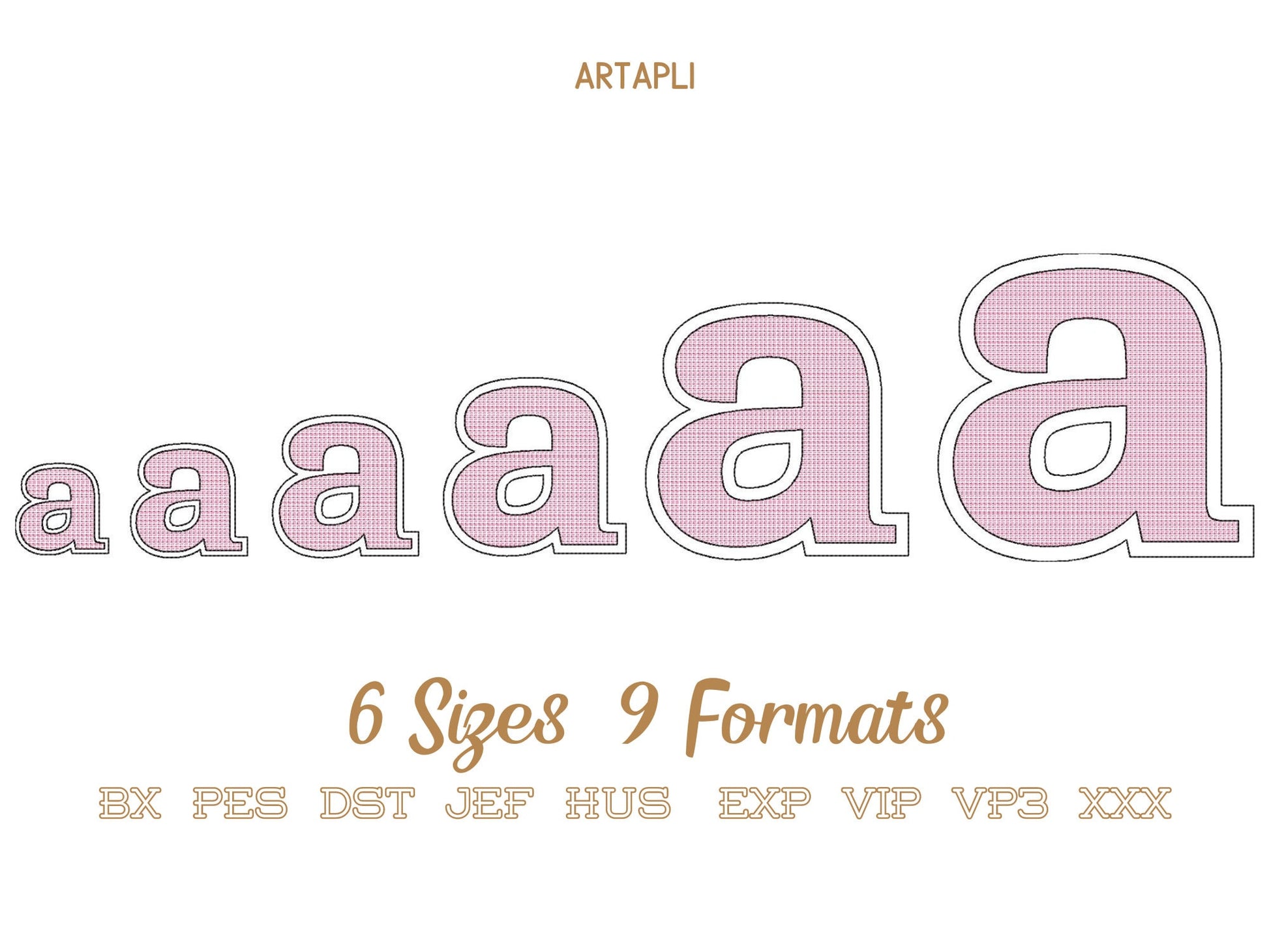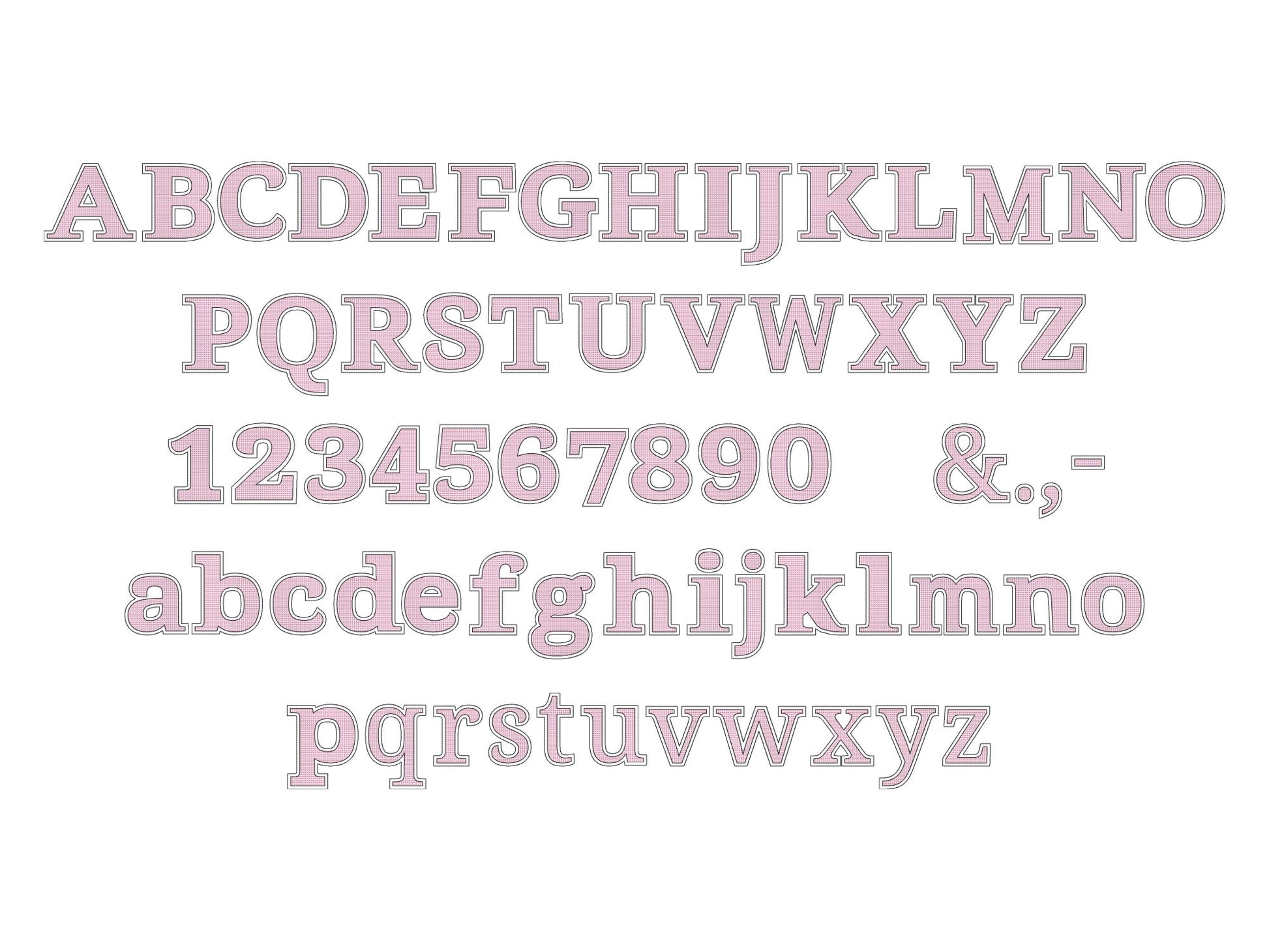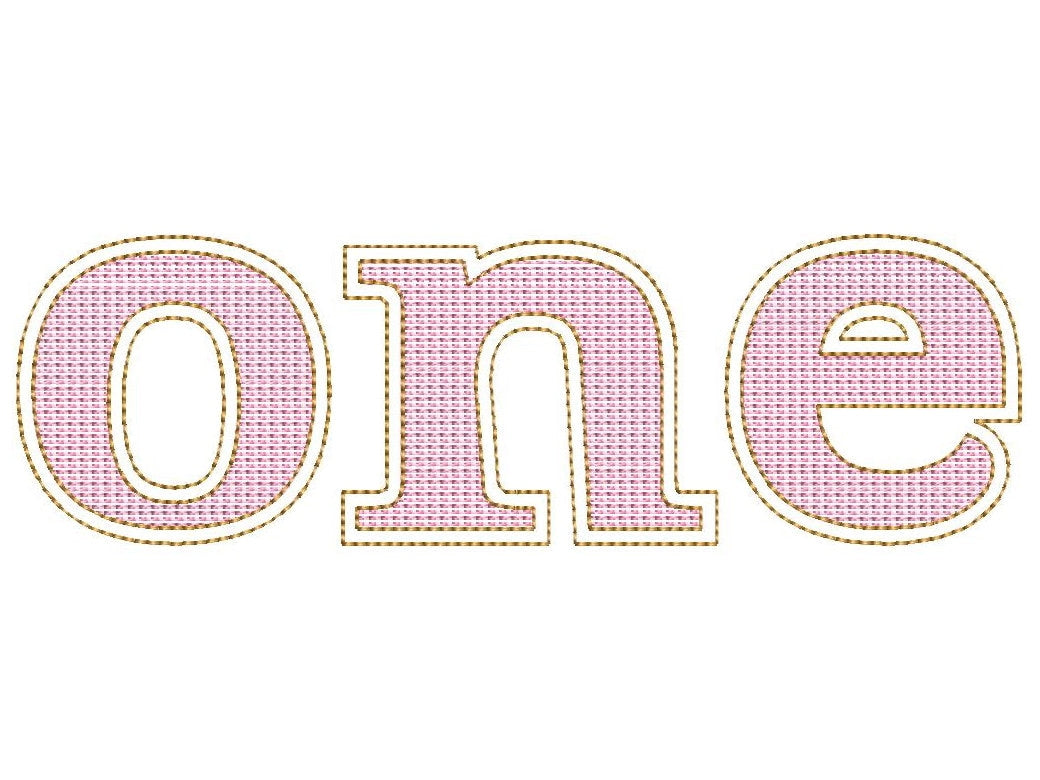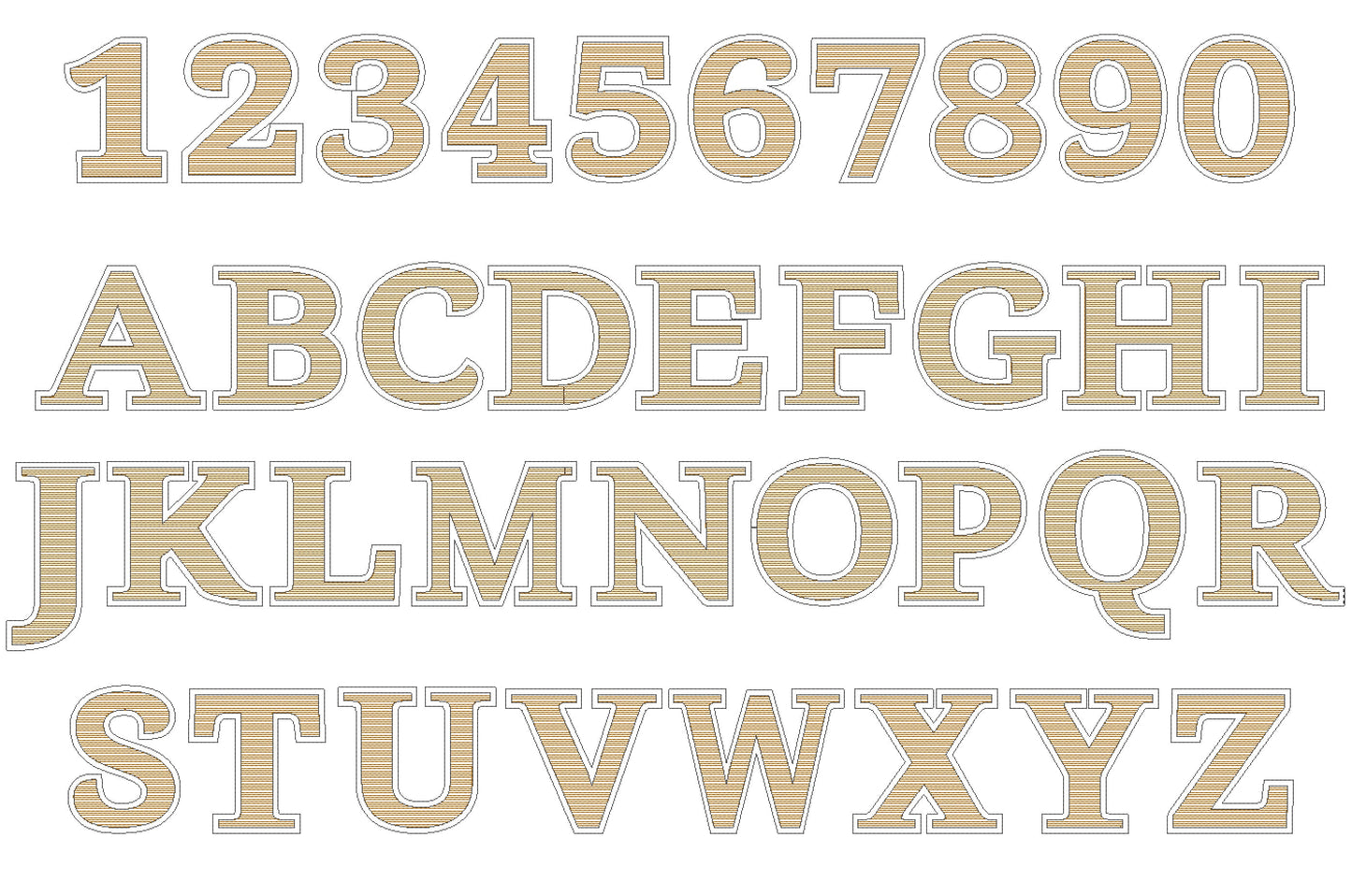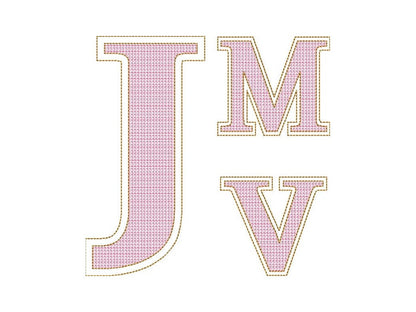
Or click to open the linkA golden light-stitch block font in sheriff style, lovely paired with a script font for names and sayings.
Light stitch block letters that combine well with other fonts. Uppercase and lowercase letters, numbers 0 to 9 and & . , - in seven sizes: 2, 2.5, 3.2, 4, 4.8, 5.7 and 7 inches.